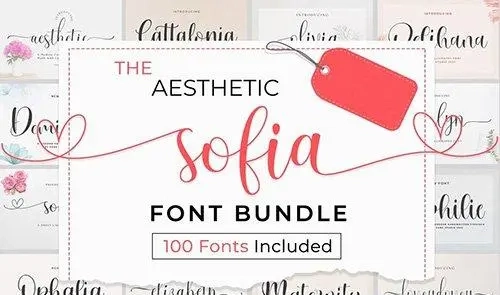
The Aesthetic Sofia Font Bundle
The Aesthetic Sofia Font Bundle offers a curated collection of elegant and versatile typefaces designed to elevate your creative projects. This bundle features a range of font styles, including script, serif, and sans-serif options, each crafted with attention to detail.
• Multiple font styles: script, serif, sans-serif
• Variety of weights for flexibility in design
• High-quality designs suitable for both print and digital use
• Includes uppercase, lowercase, numbers, and special characters
Ideal for branding, logos, web design, and print materials, the Aesthetic Sofia Font Bundle provides the perfect typographic solution for any project.